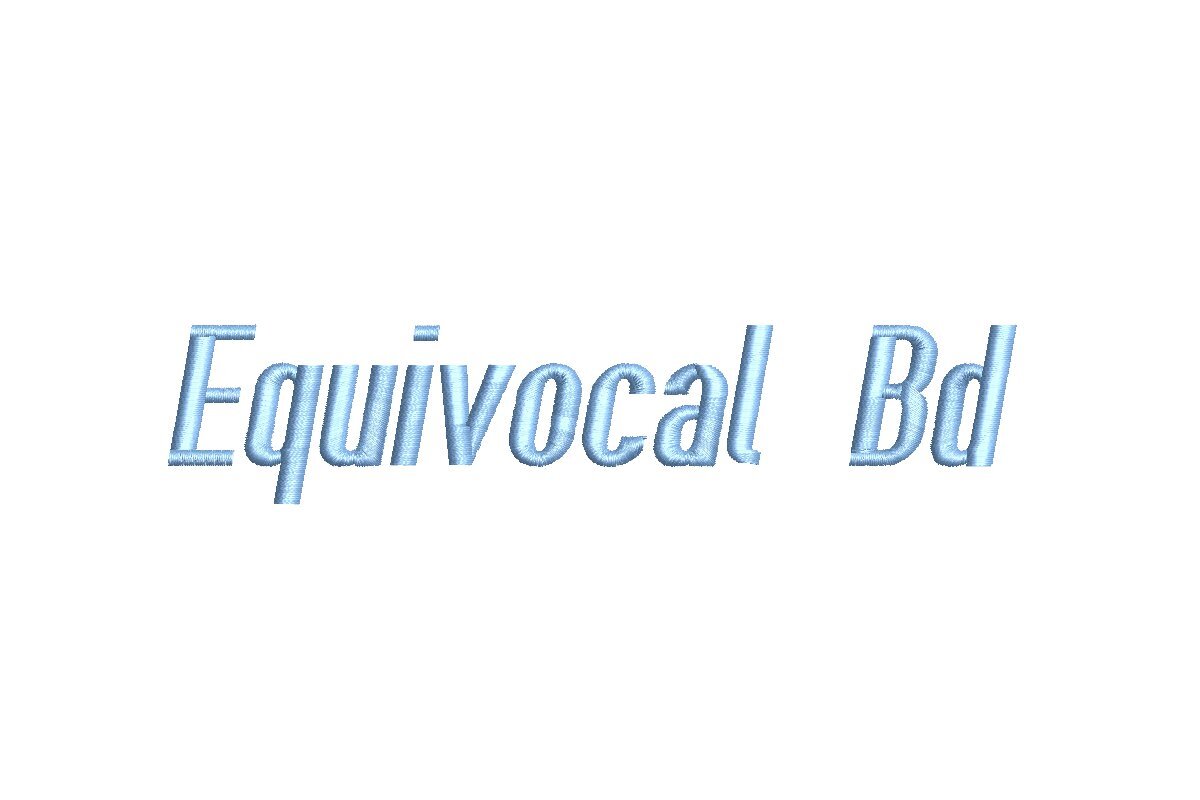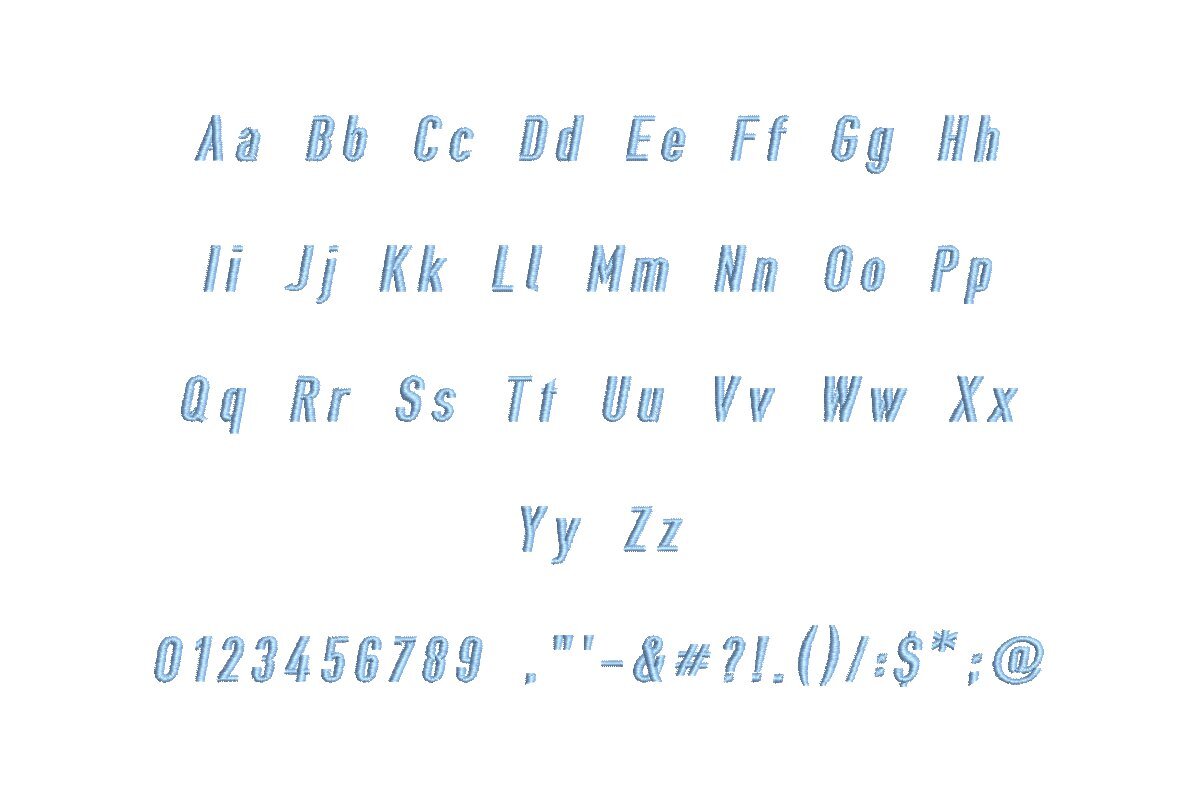
Introducing Equivocal Bd ESA Font - Your Gateway to Exceptional Embroidery! Crafted to seamlessly integrate with Wilcom Studio e4.5.6 and Hatch 3 versions and beyond, this font is your key to unrivaled embroidery creativity. Its bold, captivating design adds a unique charm to your projects, ensuring they stand out effortlessly. Achieve perfection with this user-friendly digitized font, promising precision in every stitch. Immerse yourself in a world of limitless creative possibilities with Equivocal Bd ESA Font and elevate your Wilcom Studio and Hatch software. Say goodbye to the ordinary and upgrade today for an extraordinary embroidery journey. Your masterpieces deserve the best.